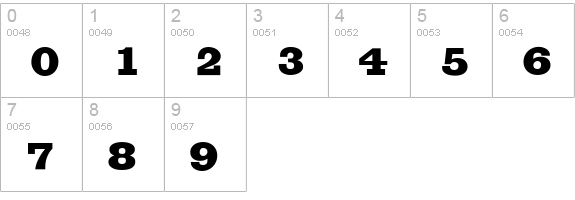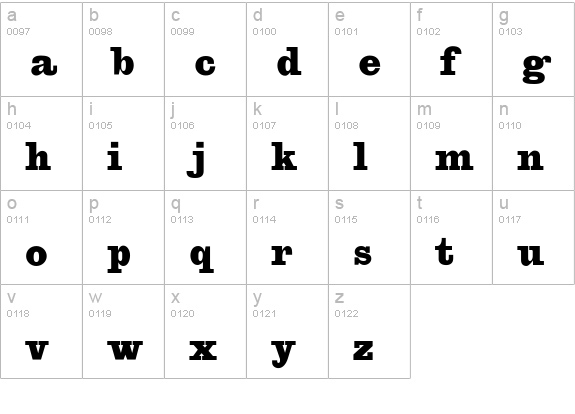
CgEgizianoBl Font Details
Introducing CgEgizianoBl font, a stunning display typeface that exudes elegance and sophistication. This font boasts a unique blend of modern and classic styles, making it perfect for a wide range of design projects. CgEgizianoBl features crisp, clean lines and sharp edges that add a touch of professionalism to any text. What makes CgEgizianoBl even more appealing is that it is available for free download at FontsMarket.com. This means you can easily access this gorgeous font without any cost, making it a valuable addition to your font collection. Whether you're working on branding, invitations, or editorial design, CgEgizianoBl is sure to elevate your creations and leave a lasting impression. Download this beautiful font today and enhance your design projects with its timeless charm.